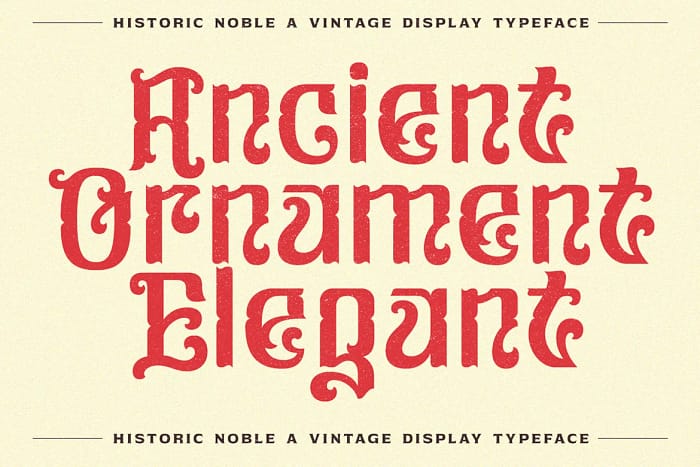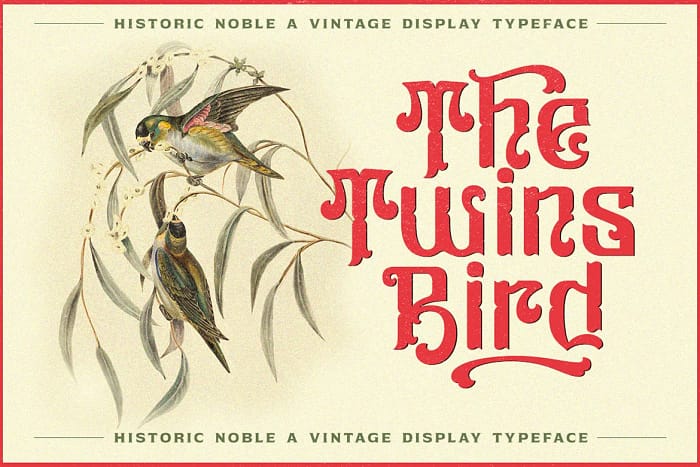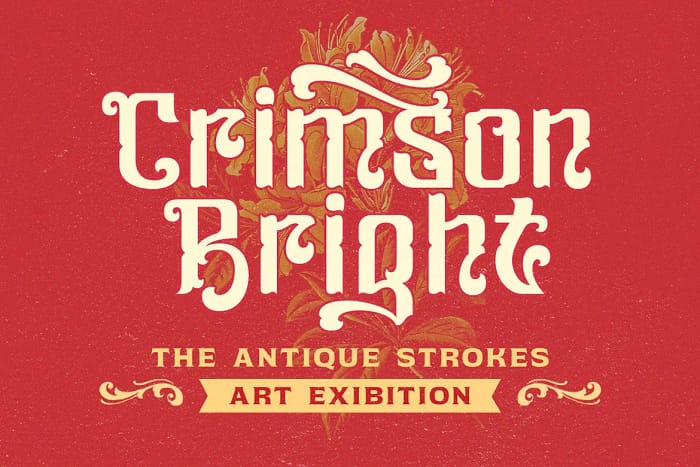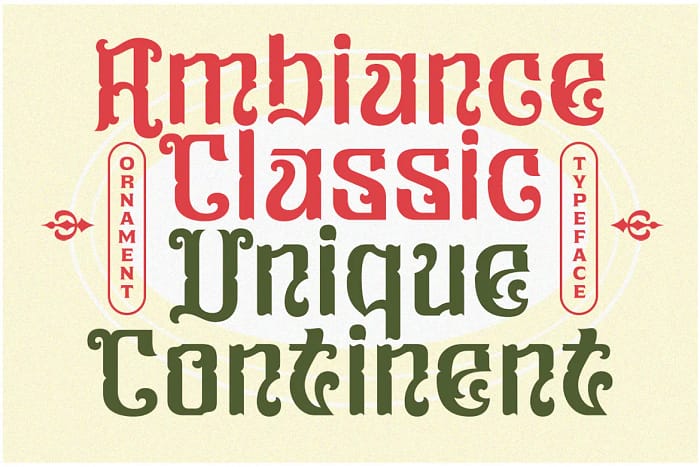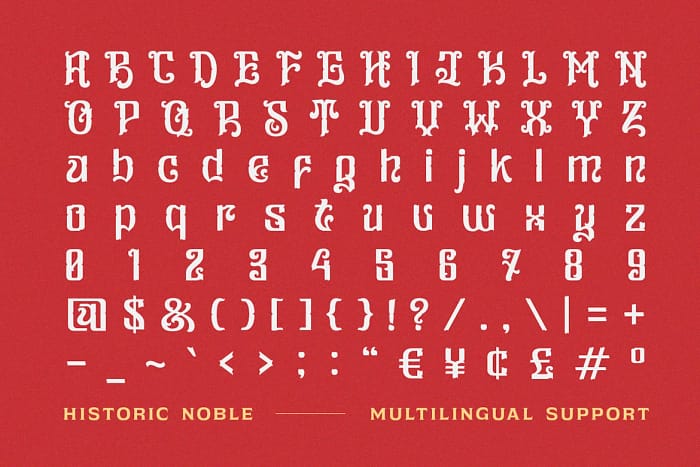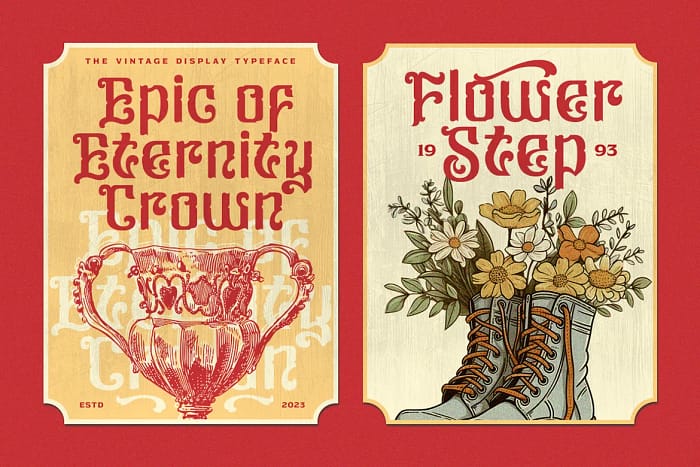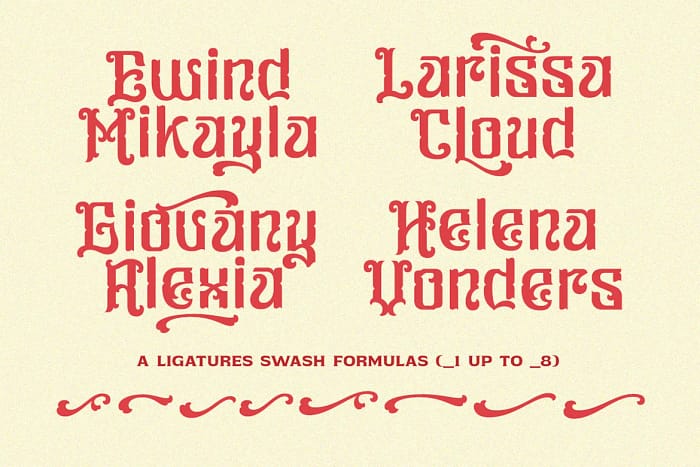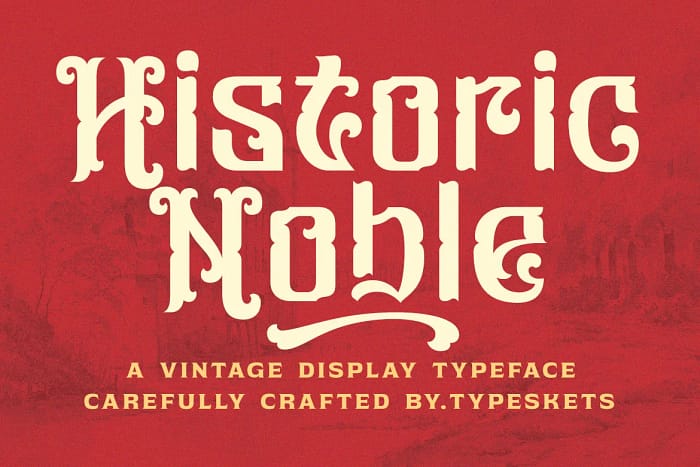
HISTORIC NOBLE
Journey through history with Historic Noble, a vintage display typeface that transports you to the elegant world of aristocracy.
Journey through history with Historic Noble, a vintage display typeface that transports you to the elegant world of aristocracy. With its classic letterforms and intricate embellishments, this font radiates nobility and sophistication